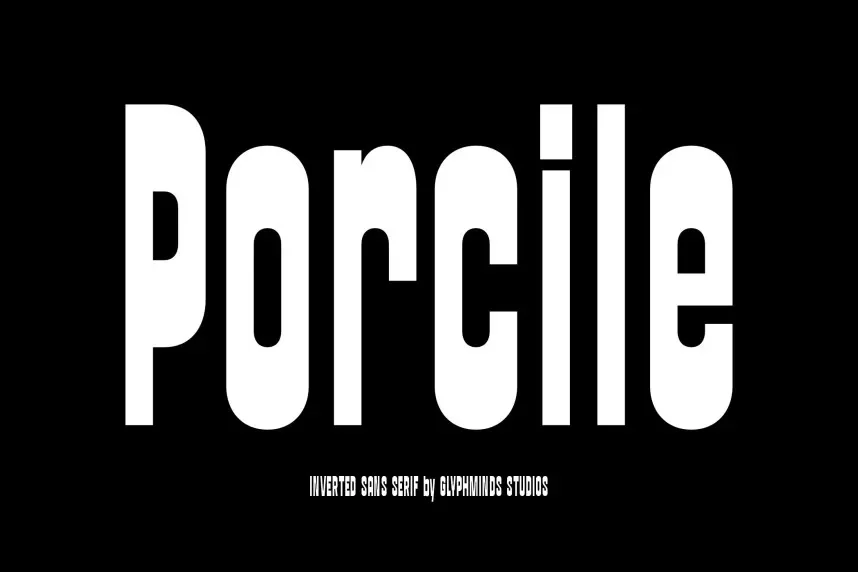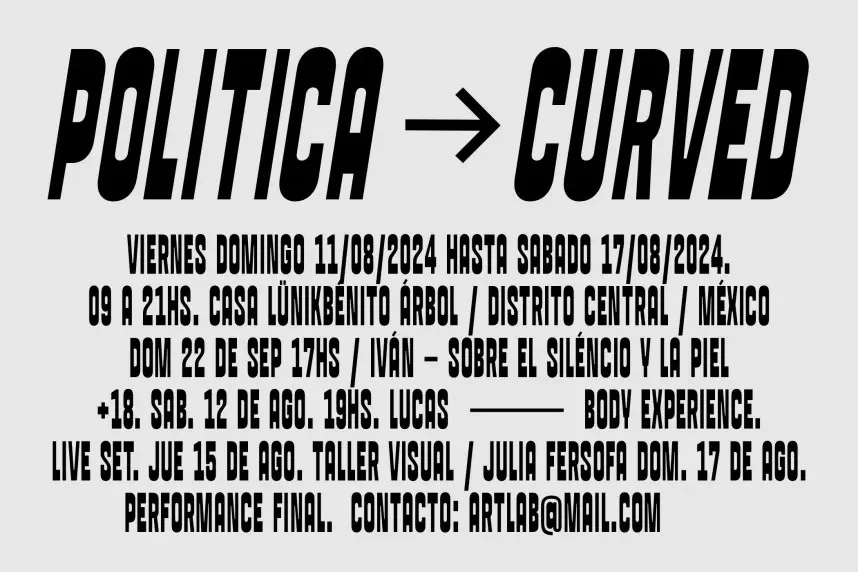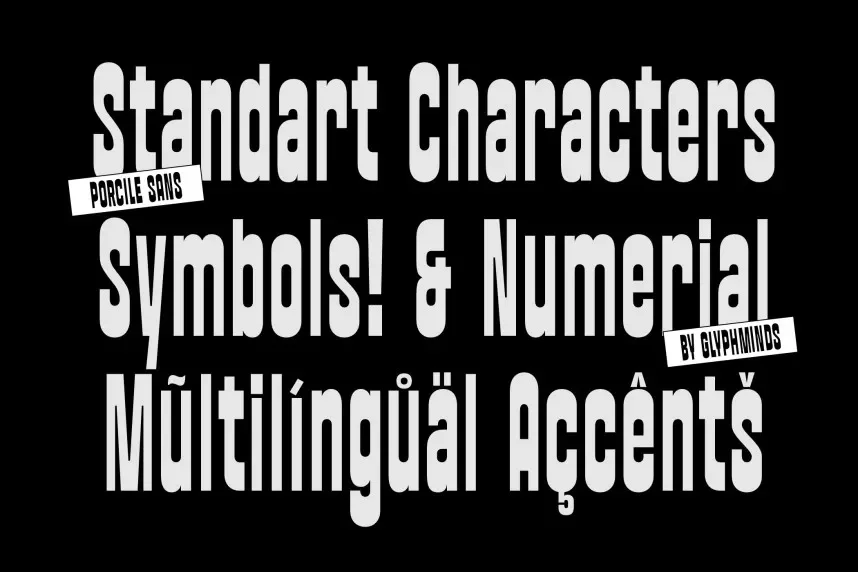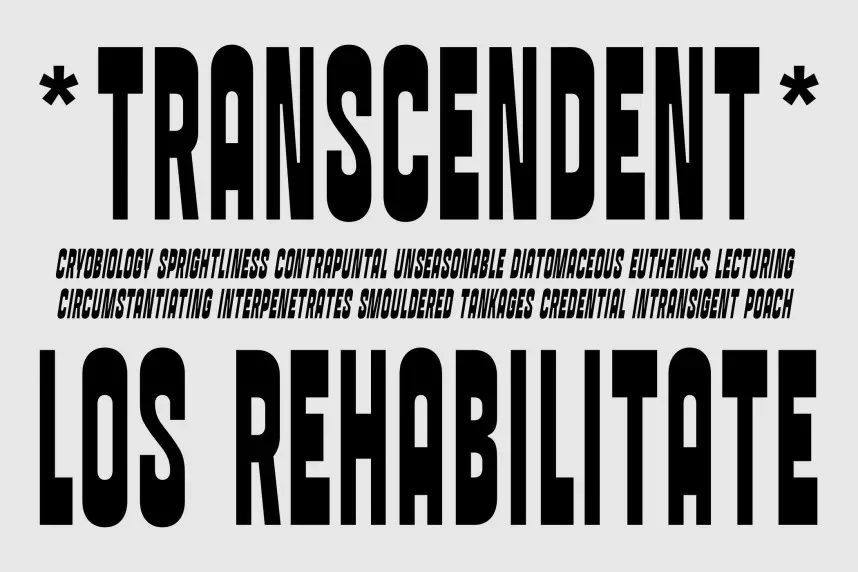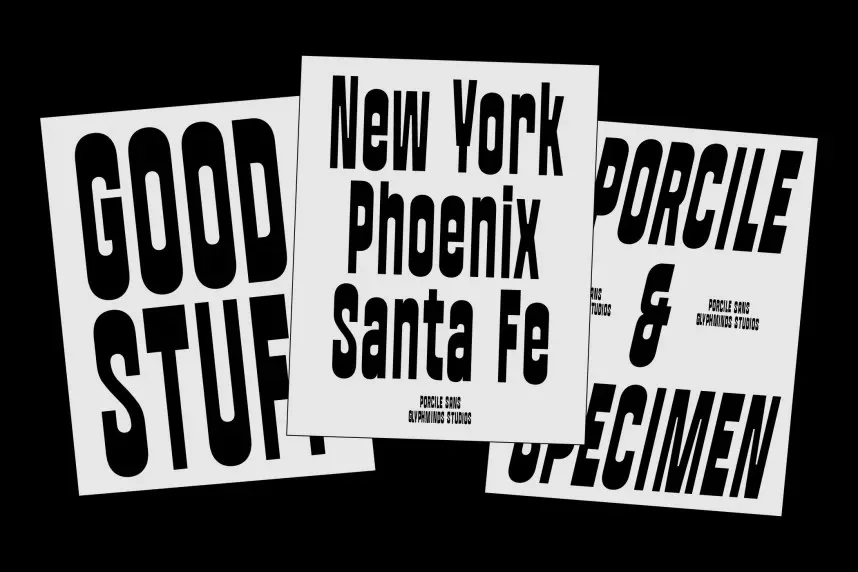
Porcile Sans Serif Font provides a practical alternative to decorative display fonts when clarity is required. Designers often need a consistent sans-serif for supporting text.
Porcile Sans Serif is a sans-serif typeface with simple strokes, balanced spacing, and neutral proportions. It complements display fonts while maintaining readability in paragraphs.